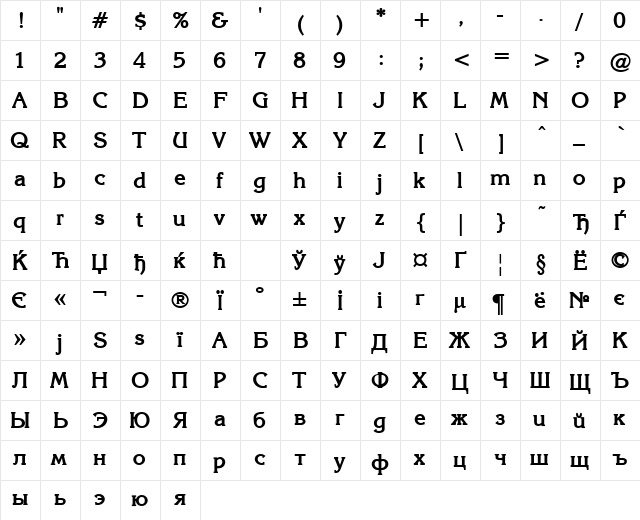
KarinaC Bold
Design Context for KarinaC Typeface
KarinaC offers clean, dependable letterforms without strong stylistic allegiance, making it a practical choice for designers who need flexibility. The heavy weight commands attention and anchors typographic hierarchies.
Pro Tip: Use KarinaC in both headline and body roles to test its range before committing to a single application.